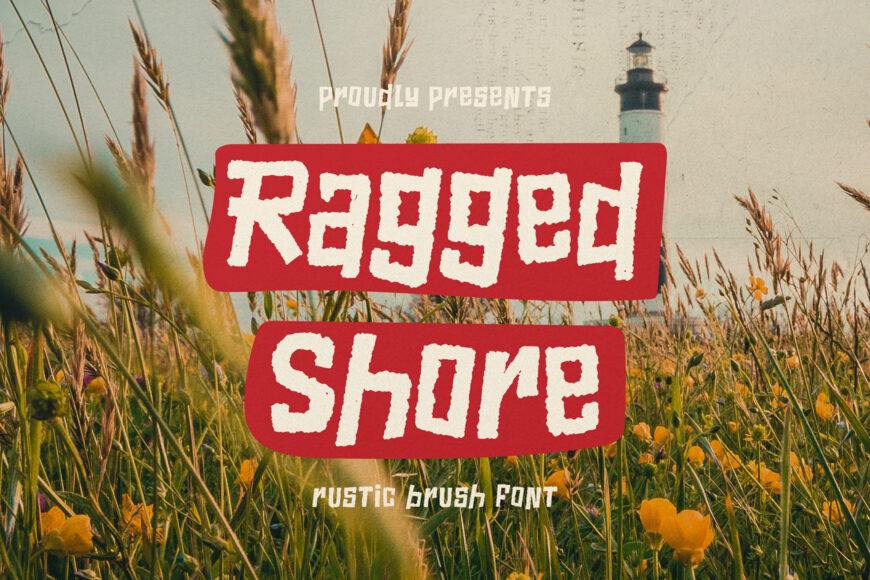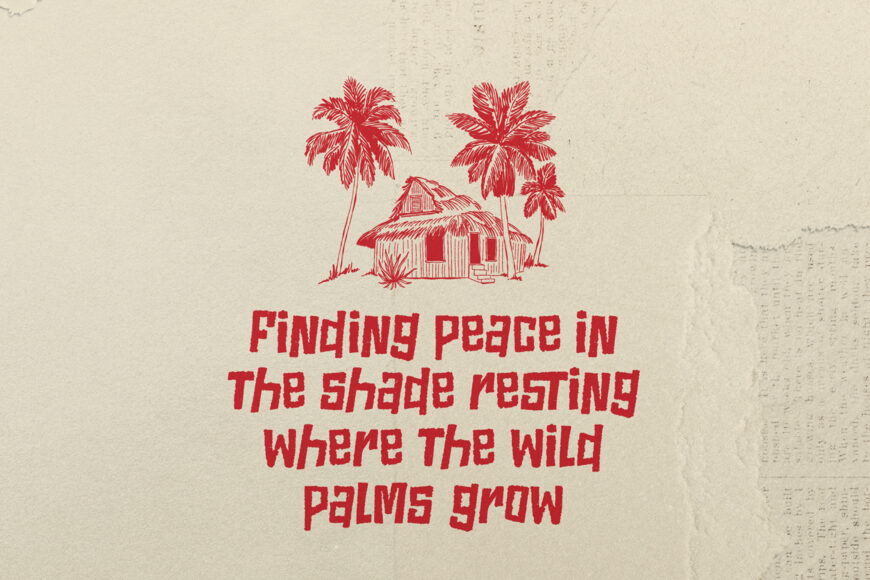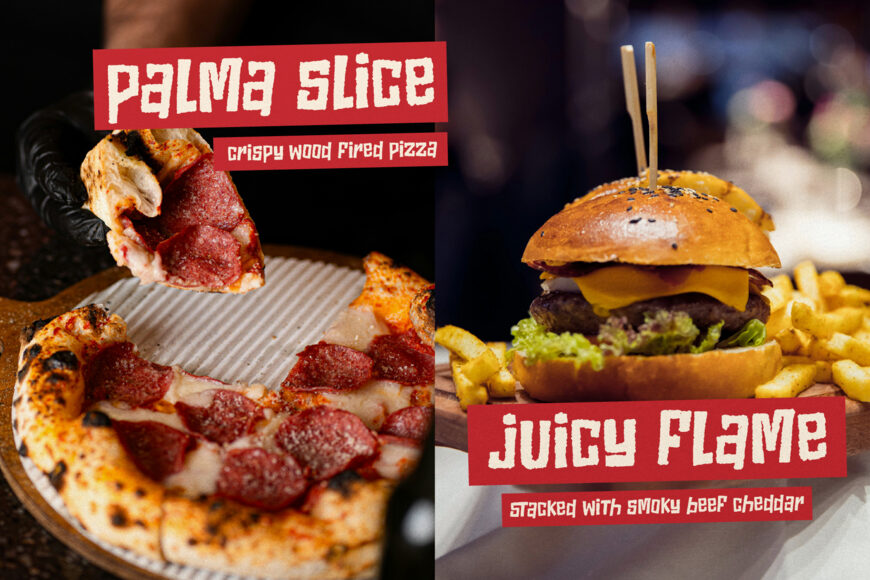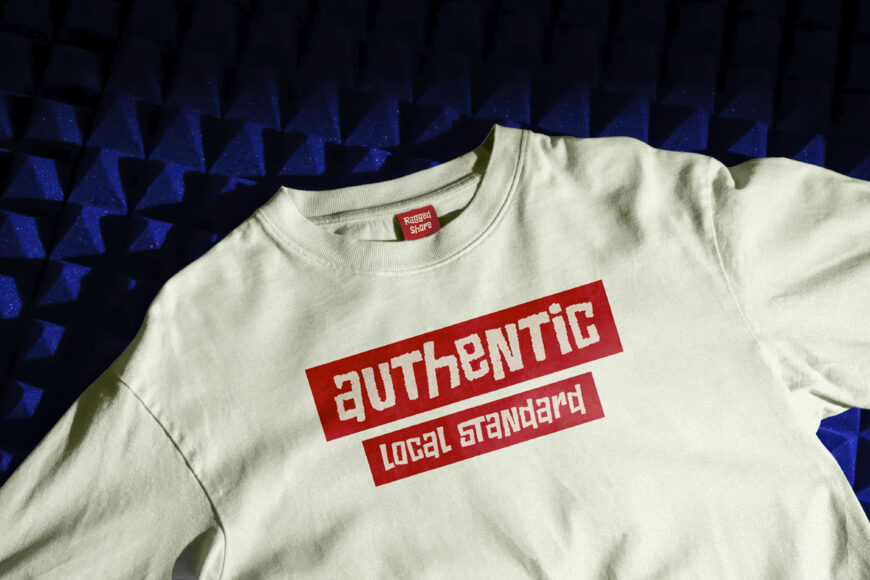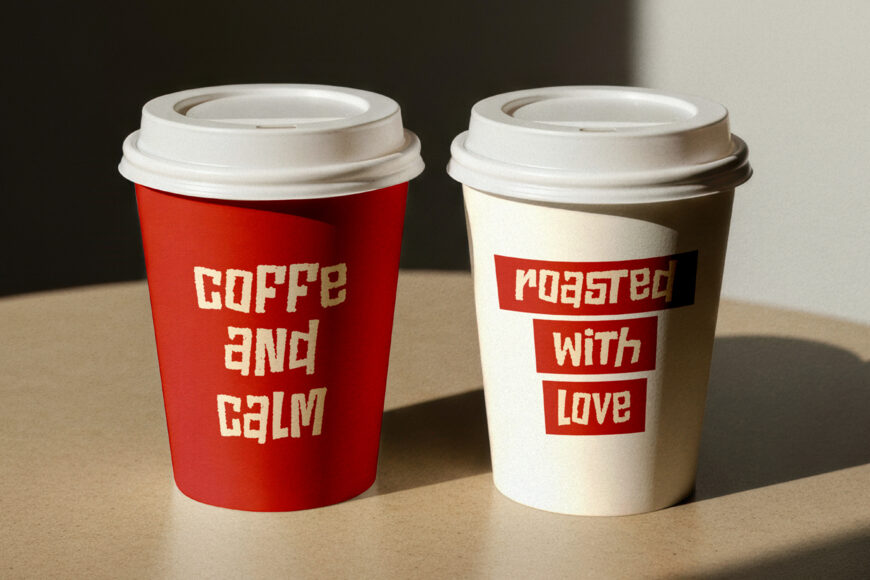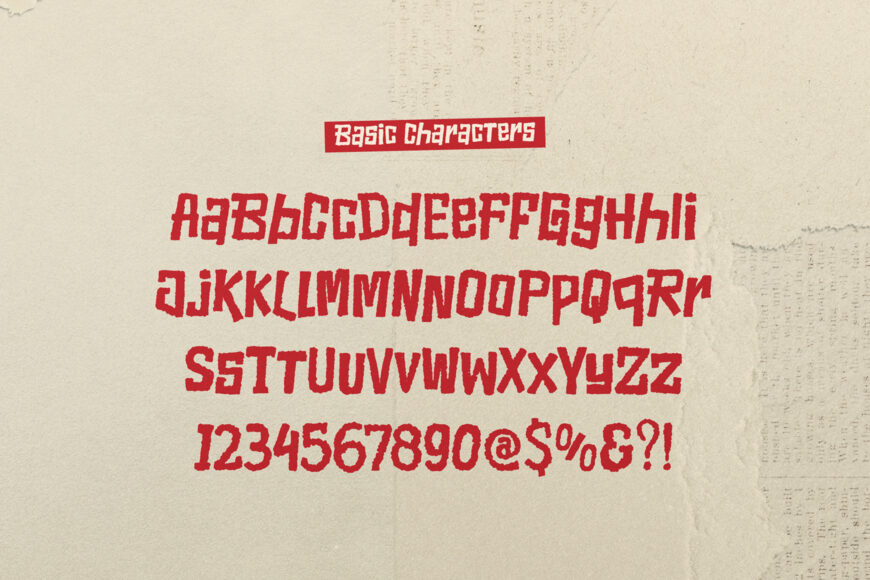
Ragged Shore Font
Bring raw coastal charm, textured erosion, and earthy organic warmth to your visual typography with Ragged Shore! Designed as a rustic brush font, Ragged Shore features heavy display letterforms with distressed, hand-carved edges and tactile brush strokes. Its bold, weathered posture delivers an immediate sense of outdoor adventure, coastal heritage, and authentic artisan character across headlines.
Ideal for outdoor brand logos, beachside café menus, adventure apparel, rustic product packaging, quote art prints, sticker sheet designs, and custom Cricut or Silhouette craft SVG creations!